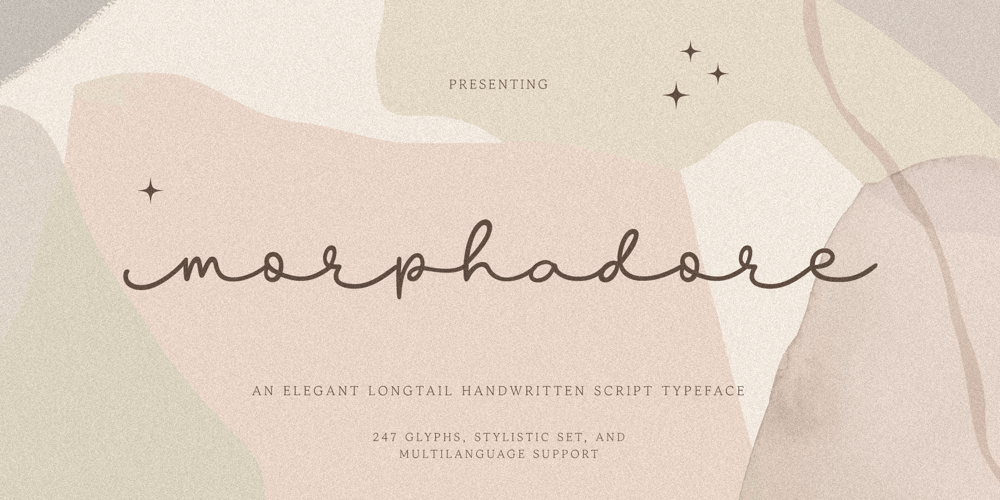
Morphadore
Morphadore font
Morphadore Font Family was designed by Gha Arizal and published by Invasi Studio. Morphadore contains 1 styles and family package options. The Morphadore font brings elegance and luxury by offering a longtail monoline handwritten style. With Morphadore you can create elegant luxury logos, greeting cards, illustrations, quotes, charming branding, book covers, packaging, and much more.Features: Total 247 Glyph Uppercase & Lowercase Numerals & Punctuation Alternates Multilanguage Supports 60+ Latin based languages